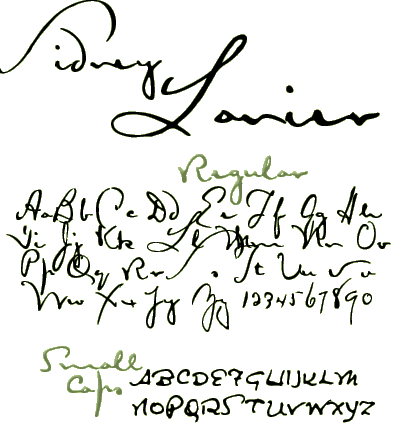
This font is based on the handwriting of American poet and novelist Sidney Lanier, as seen in a letter written by him in 1875.
The font features numerous special ligatures and letter combinations to better mimic the feel of real handwriting. This font is available for sale at myfonts.com |